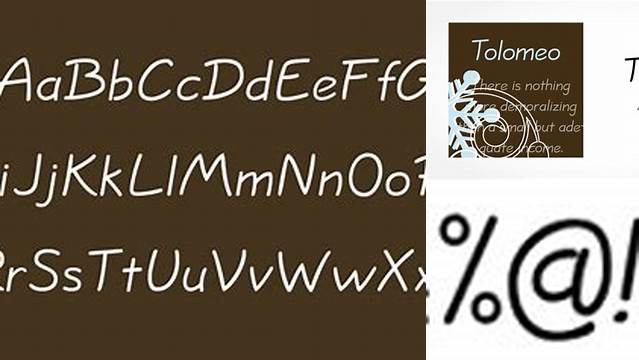
Tolomeo Font: Free Download & Creative Uses
Understanding the Tolomeo Font: A Designer's Dream Tool
Hey guys! Let's dive into the fantastic world of fonts, and specifically, the amazing Tolomeo handwriting font. If you're a designer, a hobbyist, or just someone who loves to make their projects stand out, you've probably heard of or are looking for unique fonts. Well, the Tolomeo font is exactly that – a beautiful, handcrafted typeface that brings a touch of elegance and personality to any design. What makes it so special? It’s designed to mimic natural handwriting, offering a warm, approachable, and distinctly human feel. This isn't just another Arial or Times New Roman; this is a font with character, perfect for invitations, branding, social media graphics, and so much more. The beauty of a handwriting font like Tolomeo lies in its ability to connect with the audience on a more personal level. It suggests authenticity and care, making whatever you design feel more thoughtful. Many designers spend a lot of time searching for that perfect font that can convey emotion and style simultaneously. The Tolomeo font delivers on both fronts. Its clean lines, balanced curves, and subtle variations in stroke width give it a sophisticated yet unpretentious vibe. Whether you're creating a wedding invitation that needs to feel romantic and personal, a logo for a boutique that needs to exude artisanal charm, or even just a heartfelt social media post, Tolomeo can elevate your message. The versatility of this font is truly impressive, and the fact that you can get it as a free download makes it an absolute must-have in your font collection. We’ll explore where and how to get your hands on this gem and how best to utilize its charm in your upcoming projects, ensuring your designs are not just seen, but also felt.
Exploring the Allure of Tolomeo Handwriting Font
The allure of the Tolomeo handwriting font isn't just its aesthetic appeal; it's the story it tells. Handwriting fonts, by their very nature, bring a sense of intimacy and personal touch to digital communication. Tolomeo excels in this regard, offering a style that is both refined and approachable. Think of it as the difference between a typed, impersonal letter and a handwritten note from a friend – the latter always carries more emotional weight. This font masterfully captures that essence. Its strokes have a natural flow, reminiscent of a pen gliding across paper, with subtle imperfections that lend it authenticity. It’s not overly stylized or calligraphic, which can sometimes feel inaccessible. Instead, Tolomeo strikes a perfect balance, providing a legible yet distinctively personal character. This makes it incredibly versatile. Imagine using it for a brand's primary typeface – it could signal craftsmanship, trust, and a human-centric approach. For event invitations, whether it's a wedding, a birthday, or a corporate gala, Tolomeo can add a layer of elegance and warmth that standard fonts simply can't match. Even for blog posts or website copy where you want to foster a connection with your readers, a touch of Tolomeo can make the content feel more engaging and less corporate. The subtle variations in the letterforms, the slight slant, and the overall fluidity are what make this font so captivating. It’s the kind of font that makes you want to reach out and touch the screen, feeling the texture of the ink. When you're designing, especially in a crowded digital space, standing out is key. A font like Tolomeo provides that unique edge, making your designs memorable and impactful. It's a tool that empowers you to inject personality and genuine feeling into your work, transforming ordinary text into a meaningful expression.
Why Tolomeo Font is a Go-To for Designers
So, why is the Tolomeo handwriting font such a popular choice among designers, especially when many are on the hunt for free resources? For starters, it offers a professional yet personal aesthetic that’s hard to find in free font offerings. Many free fonts can be quite basic or lack the nuanced character that truly elevates a design. Tolomeo, however, punches well above its weight class. It provides a high-quality, elegant script that mimics natural handwriting without being overly casual or messy. This balance is crucial for branding and marketing materials where legibility and a polished look are paramount. Designers love it because it can be used across a wide range of applications. Need a chic header for a fashion blog? Tolomeo. Crafting a sophisticated logo for a small business? Tolomeo. Designing a unique save-the-date card? You guessed it, Tolomeo. Its versatility means you don't need to constantly switch between multiple fonts to achieve different moods; Tolomeo can adapt. Furthermore, its clean structure ensures readability, even at smaller sizes, which is a common pitfall for many script fonts. This means you can confidently use it for body text in certain contexts or for prominent headings and call-to-actions where you want to grab attention with style. The availability of a free download is obviously a huge plus. In the world of design, licensing fees can add up quickly. Having access to a font like Tolomeo that offers such premium quality and aesthetic appeal without a price tag is invaluable. It democratizes good design, allowing individuals and small businesses with limited budgets to access professional-grade typographic resources. This accessibility fosters creativity and allows for more experimentation, which is vital for any designer looking to push boundaries and create truly unique work. It’s a reliable workhorse that consistently delivers excellent results, making it a staple in many digital designer's toolkit.
The Mechanics of a Great Handwriting Font: Tolomeo's Design
Let's talk about what makes a handwriting font truly shine, and how the Tolomeo handwriting font nails it. It’s not just about looking like someone’s scribble; it’s about thoughtful design that captures the essence of natural writing. Tolomeo achieves this through several key design elements. Firstly, consider the stroke variation. Unlike monolinear fonts that have a uniform thickness, Tolomeo incorporates subtle shifts in line weight, mimicking how a pen or brush naturally applies more pressure during certain strokes. This gives the letters depth and a sense of organic movement. Secondly, the letterforms themselves are designed with a harmonious flow. The baseline isn't perfectly rigid, allowing for a slight bounce and rhythm that feels alive. Ascenders and descenders (the parts of letters that extend above or below the main body) have graceful curves, and the connections between letters in a word feel natural, not forced. This is crucial for a script font – awkward ligatures or disjointed letter pairs can break the illusion of handwriting. Tolomeo avoids these pitfalls with expertly crafted connections. Another critical aspect is legibility. Many script fonts sacrifice clarity for style, becoming difficult to read, especially in smaller sizes or at a distance. Tolomeo, however, maintains a remarkable level of readability. The X-height (the height of lowercase letters like 'x') is well-proportioned, and the apertures (the openings in letters like 'a' or 'e') are clear. This means you can use Tolomeo not just for flashy headlines but also for more functional text elements where comprehension is key. The overall personality it conveys – warm, friendly, sophisticated yet approachable – is a direct result of these careful design choices. It’s the kind of font that feels intentional, not accidental. When you download and use Tolomeo, you're benefiting from a design that’s been meticulously crafted to replicate the beauty of handwriting while ensuring it functions effectively in modern digital and print applications. It’s this blend of artistry and technical precision that makes it such a valuable asset for creators looking for that special touch.
Unleashing Creativity: Projects Perfect for Tolomeo Font
The Tolomeo handwriting font isn't just pretty; it’s incredibly versatile. When you’ve got this gem downloaded and installed, the creative floodgates open! What kind of projects really sing when using Tolomeo? Let’s brainstorm. Wedding Invitations & Stationery: This is perhaps the most obvious and stunning use case. Tolomeo’s elegant, personal feel is perfect for conveying romance and bespoke charm. Think save-the-dates, invitation suites, place cards, and thank-you notes. It adds that touch of handcrafted luxury without the custom calligraphy price tag. Branding & Logos: For small businesses, boutiques, artisanal shops, or creative professionals (photographers, artists, writers), Tolomeo can be a fantastic primary or secondary brand font. It communicates approachability, authenticity, and a personal touch, which are highly valued in today's market. A logo using Tolomeo can feel instantly more human and trustworthy. Social Media Graphics: Want your Instagram posts or Pinterest pins to have a unique, stylish flair? Use Tolomeo for quotes, announcements, or captions overlayed on images. It helps your content stand out from the sea of generic text. Personal Projects: Diaries, journals, scrapbooks, or even personalized gift tags – if you’re putting pen to paper (digitally speaking), Tolomeo adds a lovely, personal touch. It makes digital content feel more like a thoughtful, handwritten note. Website & Blog Design: While perhaps not ideal for long-form body text due to potential readability issues at small sizes, Tolomeo can be superb for website headers, subheadings, call-to-action buttons, or special feature callouts. It adds personality and breaks up the monotony of more standard fonts. Craft Projects: Print out designs using Tolomeo for various crafts – custom mugs, t-shirt designs, greeting cards, or even stencils for painting. Its clear yet stylish nature makes it easy to work with for printing and cutting. The key is to leverage its handwriting characteristic where you want to convey personality, warmth, and a sense of personal connection. Experiment with different sizes and contexts to see how Tolomeo can elevate your message and make your creations truly memorable. It’s all about choosing the right tool for the right job, and Tolomeo is a fantastic tool for adding that special, handcrafted feel.
Enhancing Your Brand with Tolomeo's Unique Style
In the competitive business landscape, guys, establishing a distinct brand identity is absolutely crucial. This is where the Tolomeo handwriting font can play a surprisingly significant role. Think about your favorite brands – what makes them memorable? Often, it’s not just their product, but the entire experience, including their visual communication. Typography is a massive part of that. Using a font like Tolomeo for your brand can communicate a specific set of values and personality traits. If your brand is about artisanal products, personal service, or a touch of elegance, Tolomeo can instantly convey that. It suggests craftsmanship, attention to detail, and a human element that’s often missing in more sterile, corporate designs. Imagine a small bakery using Tolomeo for their logo and menu. It immediately signals that their goods are made with care and passion, differentiating them from mass-produced alternatives. Similarly, a freelance photographer using Tolomeo on their website and business cards can project a sophisticated, artistic, and personal approach to their work, attracting clients who value that aesthetic. However, it's important to use it strategically. While fantastic for headlines, taglines, or specific branding elements, using Tolomeo for extensive body text might hinder readability. The sweet spot is often using it as an accent font – pairing it with a clean, sans-serif or serif font to create contrast and visual interest. This balance ensures your brand message is both stylish and easily digestible. Consider the overall tone you want your brand to convey. If it’s warm, inviting, and a bit sophisticated, Tolomeo fits the bill perfectly. It’s a way to inject personality and memorability into your marketing materials, from social media posts and email signatures to packaging and advertisements. By choosing a font like Tolomeo, you’re not just choosing letters; you’re choosing to communicate a certain feeling and identity, making your brand more relatable and appealing to your target audience.